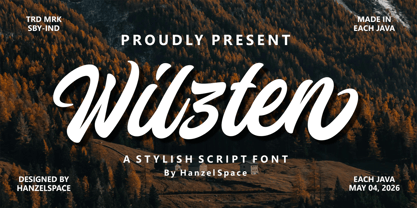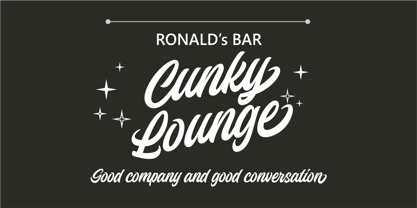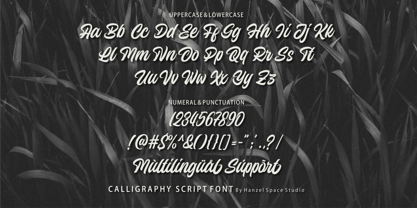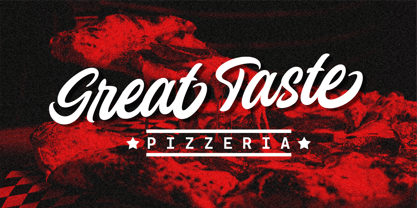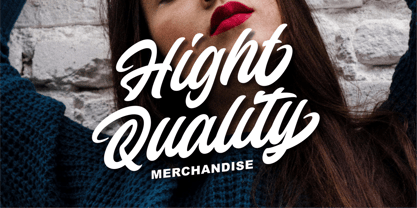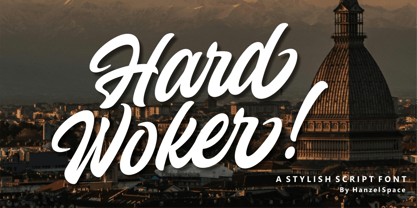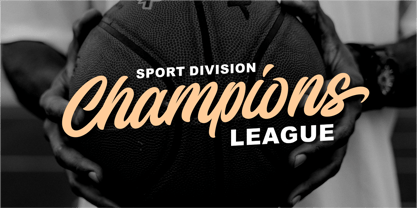
Wilzten
by Hanzel Space
The Wilzten Font Family was designed by Hanief Farandi and published by Hanzel Space. Wilzten contains 1 styles. More about this family
Introducing, Orgistar – a standout bold script with a touch of natural looks. This type of font perfectly made to be applied especially in logo, headline, signage and the other various formal forms such as invitations, labels, logos, magazines, books, greeting / wedding cards, packaging, fashion, make up, stationery, novels, labels or any type of advertising purpose.
Features:
• Uppercase & Lowercase
• Numerals & Punctuation
• Multilanguage Supports
• Stylistic Set